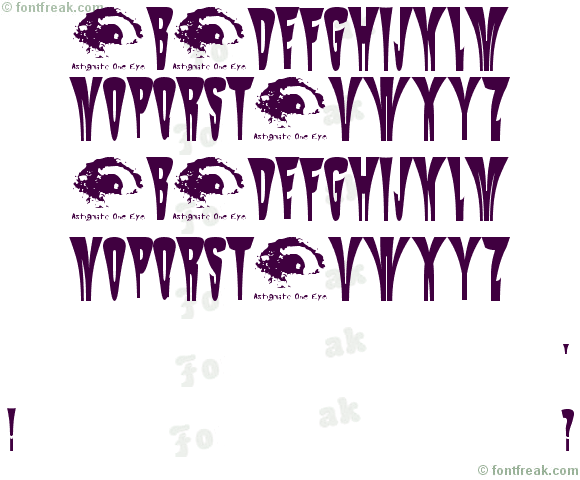
Mysterio SWTrial
About Mysterio
Mysterio, designed by Astigmatic One Eye, is a striking display font that captures attention with its unique visual style. This font features a distinctive decorative design, characterized by elongated, sharp strokes and varying thicknesses that create a captivating contrast. The spacing between letters is thoughtfully designed, enhancing readability while maintaining an artistic flair. The visual characteristics of Mysterio evoke a sense of drama and intrigue, making it an ideal choice for projects that require a bold statement.
This font shines in a variety of applications. It is particularly well-suited for event posters, where its eye-catching aesthetic can draw in crowds. Mysterio is also a fantastic choice for branding elements, especially for businesses aiming to convey a modern and edgy identity. Wedding invitations designed with this font can exude a playful yet sophisticated vibe, appealing particularly to couples looking for something unique. Additionally, Mysterio can elevate restaurant menus, especially for those wanting to showcase a trendy, upscale atmosphere.
The target audience for the Mysterio font includes graphic designers, small business owners, and content creators who seek to add a distinctive touch to their work. Whether they are crafting marketing materials or personal projects, users will find that this font allows for creative expression while maintaining professionalism.